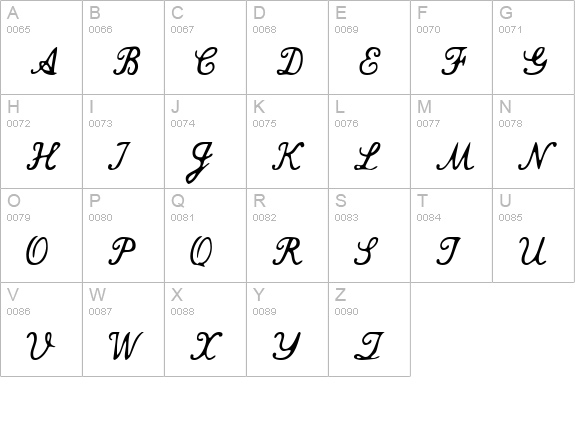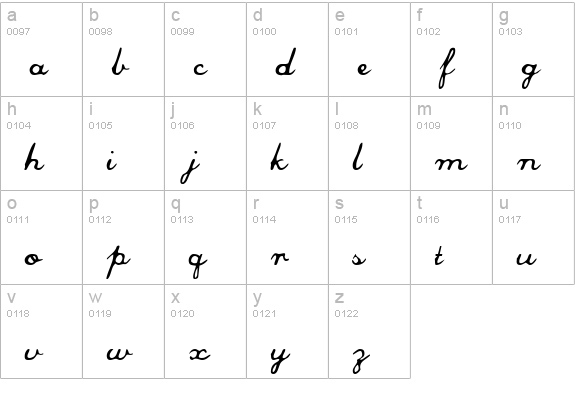
Commercial Script Normal is the standard, neutral variant in the Commercial typeface family \xE2\x80\x94 well suited to general body text, paragraphs, and standard typographic work.
Commercial Script Normal font is a classic and elegant typeface that exudes sophistication and style. With its graceful curves and flowing strokes, this font is perfect for adding a touch of refinement to any project. Whether you are designing a logo, invitation, or packaging, Commercial Script Normal font will bring a sense of timeless beauty to your work. The best part is that Commercial Script Normal font is available for free download at FontsMarket.com. This means you can easily access this stunning font without any cost, making it a valuable addition to your design toolkit. Don't miss out on this opportunity to elevate your designs with the grace and charm of Commercial Script Normal font. Download it today and start creating beautiful and impactful projects with ease.